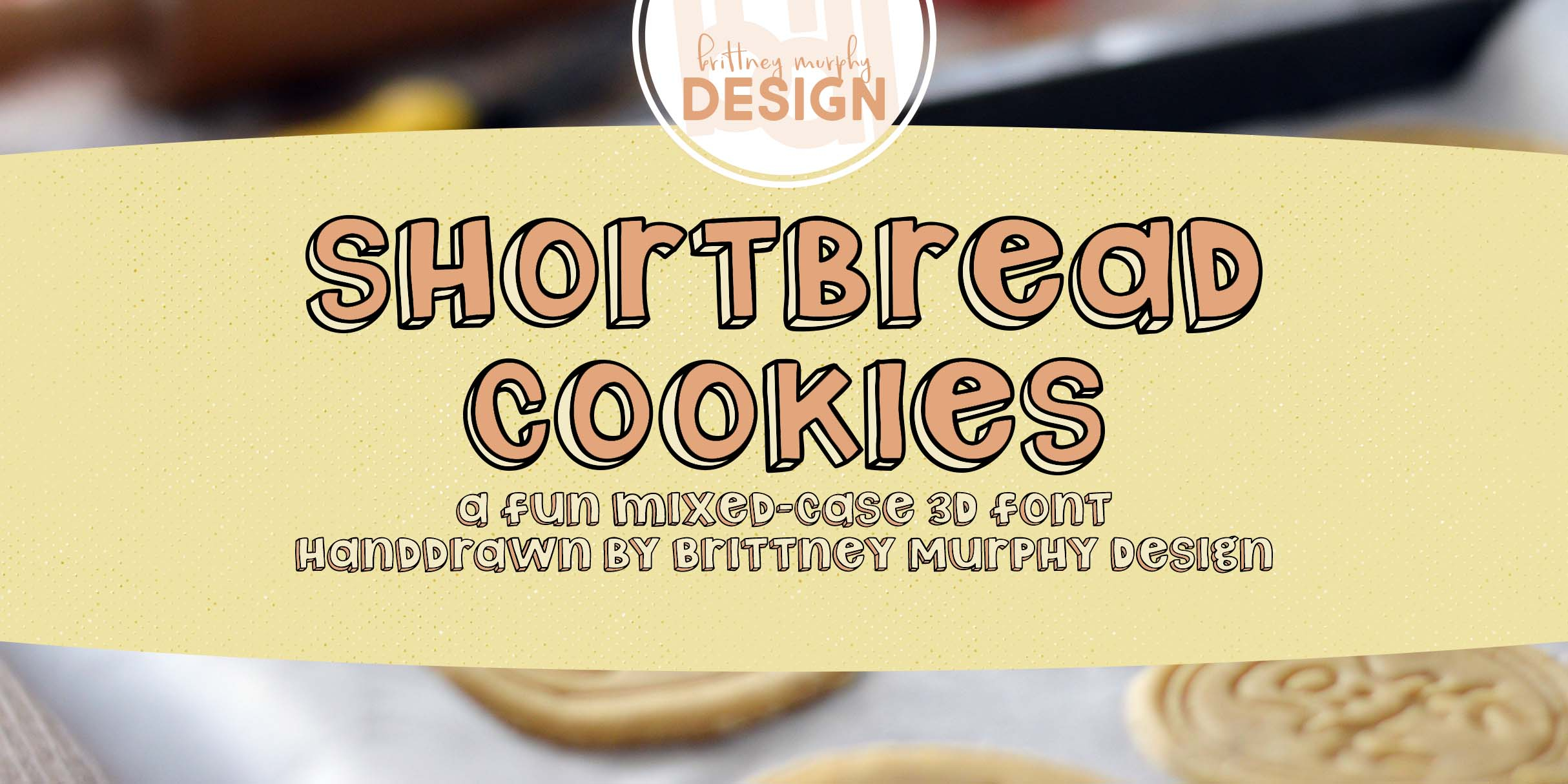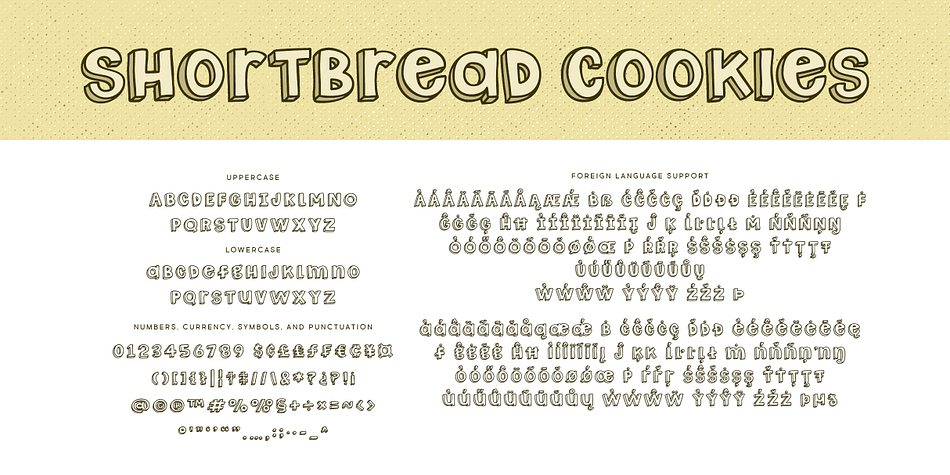
Shortbread Cookies
Designed by Brittney Murphy, Shortbread Cookies is a display sans and hand display font family published by Brittney Murphy Design.
Shortbread Cookies is a fun hand-drawn 3D font. Its little imperfections give it a friendly, homemade look perfect for kids’ projects, playful packaging, or DIY crafts. Since it’s mixed-case, you can switch back and forth between upper and lowercase as you wish to give it a customized look. Color in the background to make it pop even more in all your designs!
Includes over 300 characters with support for most Latin-based languages.
Foundry Brittney Murphy Design
Styles Display Sans, Hand Display
Designer Brittney Murphy